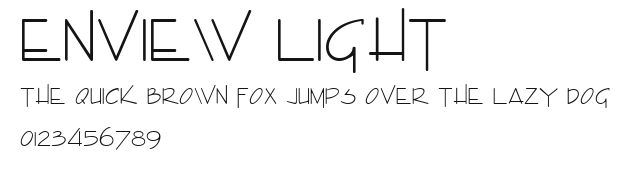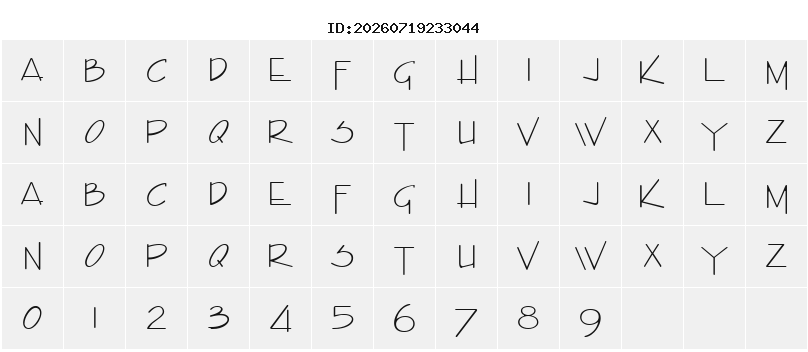
• Font Name: Enview Light
• Full Font Name: Enview Light Normal
About Enview Light.ttf
Enview Light.ttf is a modern, elegant sans-serif font designed for ultimate readability and visual harmony. Perfect for branding, headlines, web design, and print materials.